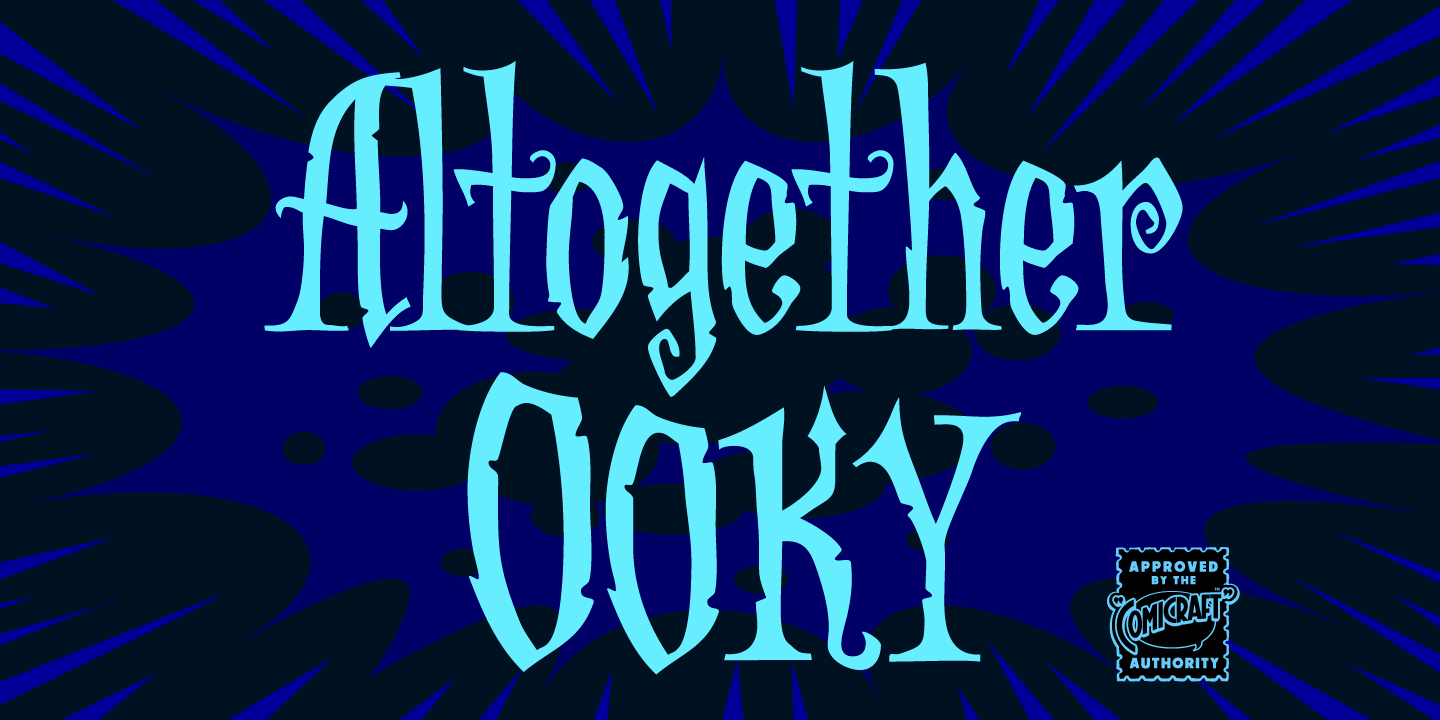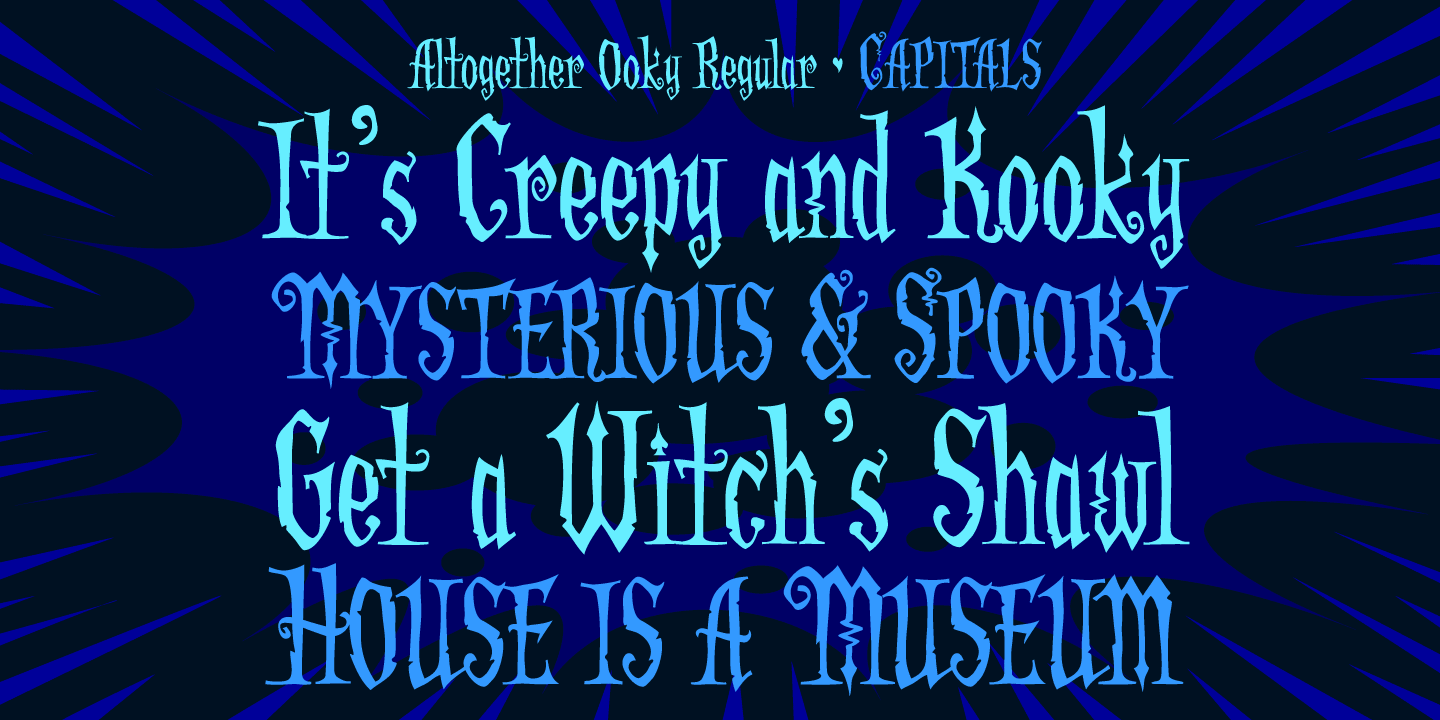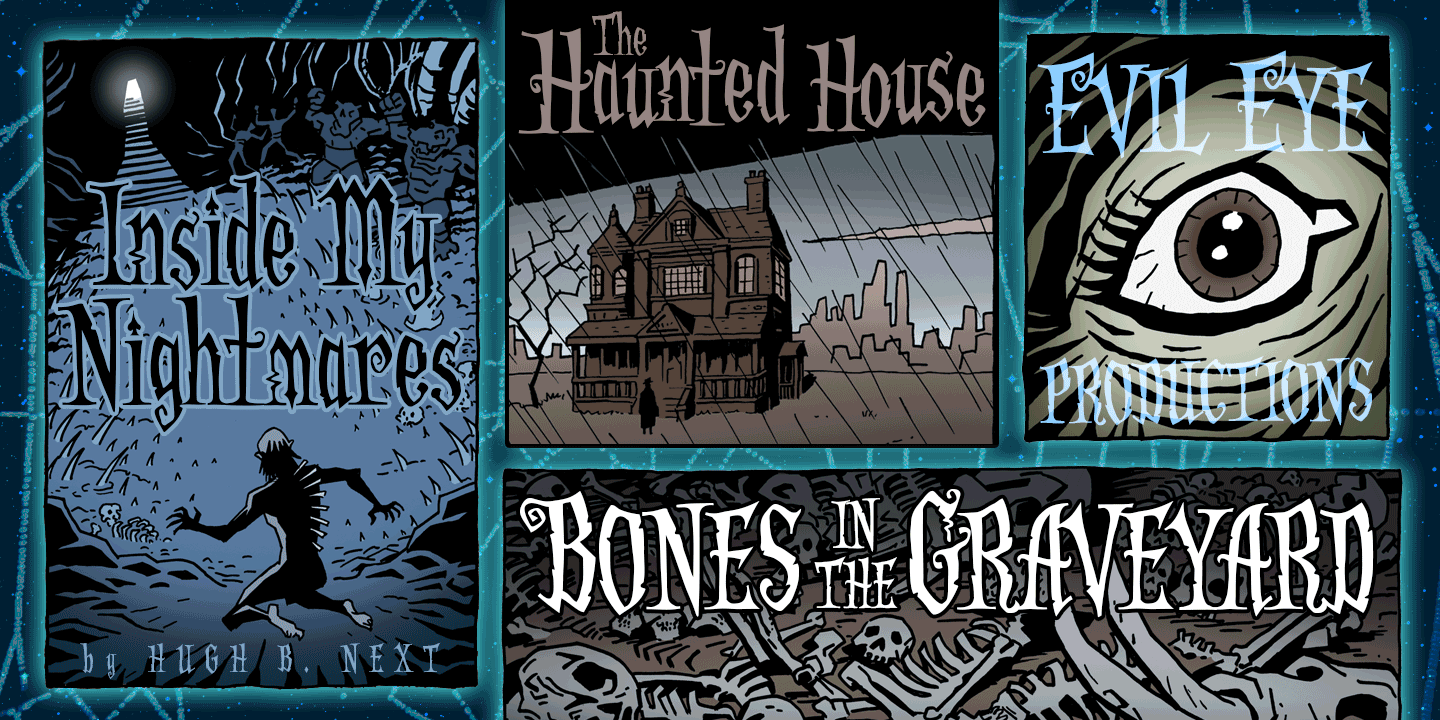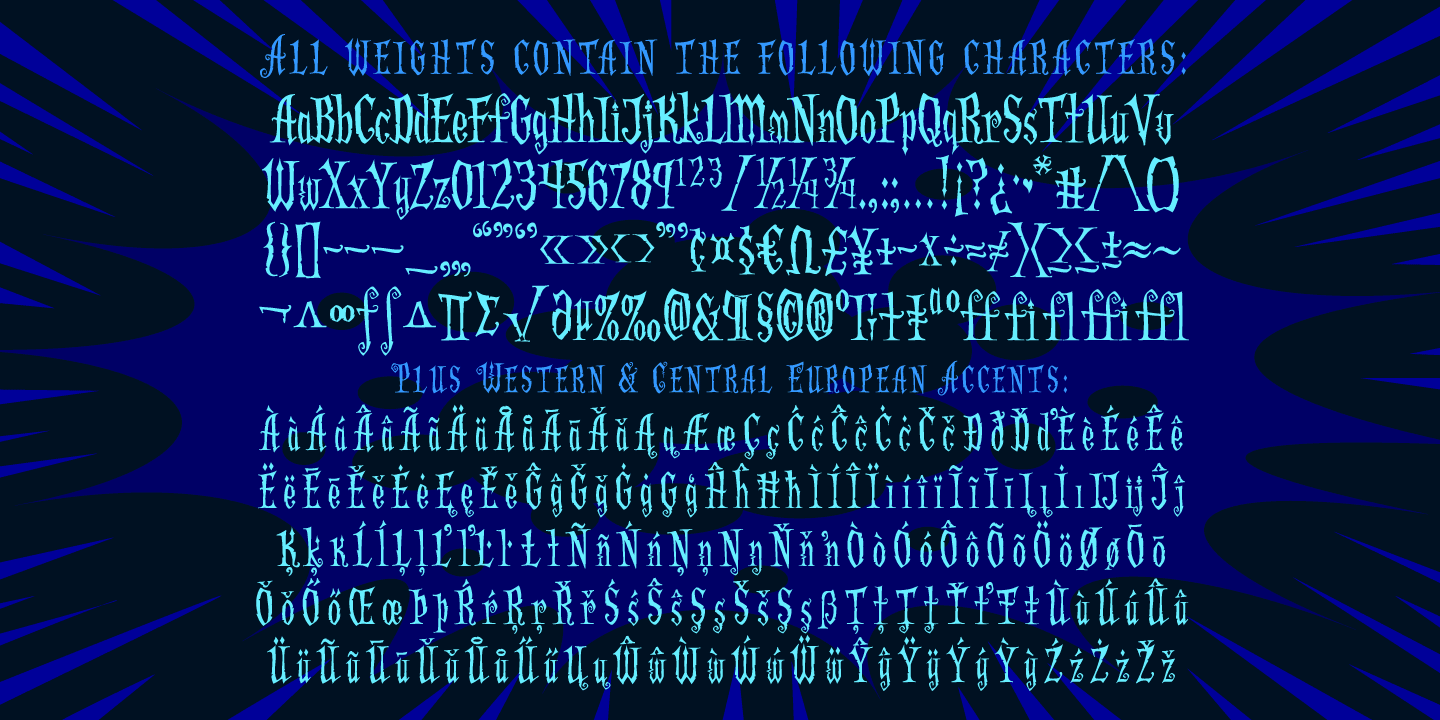
Altogether Ooky
Font Family by Comicraft Fonts
It's Creepy and it's Kooky, it's Altogether Ooky; it's the Addams Family font! Created by Comicraft's Festering Fontmeister, John Roshell, for 'The New Addams Family' TV series, Altogether Ooky is just The Thing you'll be looking for when Gomez and Morticia come knocking at your door.